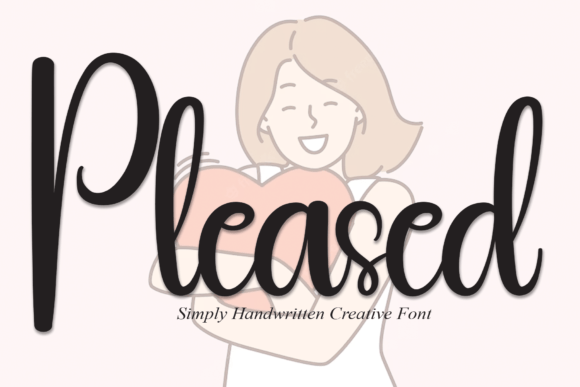
Introducing "Pleased", a captivating and elegant script font that adds a touch of charm to your digital designs. Inspired by the delicate strokes of calligraphy, this font family exudes a sense of romance and playfulness. As you explore each letterform, you'll discover a symphony of flourishing curves, graceful swashes, and intricate details that bring your words to life. Designed by the talented William Jhody, "Pleased" is a true masterpiece that seamlessly blends tradition with a touch of modernity.
With its delicate lines and flowing strokes, "Pleased" is ideally suited for creating stunning wedding invitations, heartfelt greeting cards, enchanting social media posts, and eye-catching branding materials. Whether you're a graphic designer, a creative entrepreneur, or simply someone who appreciates the beauty of typography, "Pleased" is the perfect font to add a touch of magic to your creative projects.
As you immerse yourself in the world of "Pleased", you'll discover a font that effortlessly captures the essence of joy, love, and celebration. Its sweet and friendly nature makes it perfect for projects that aim to inspire and uplift. From heartfelt messages to whimsical designs, "Pleased" will add a touch of magic to every word you write. Embrace the beauty of handwritten charm and invite a sense of delight into your digital creations with "Pleased", the font that speaks to your heart.